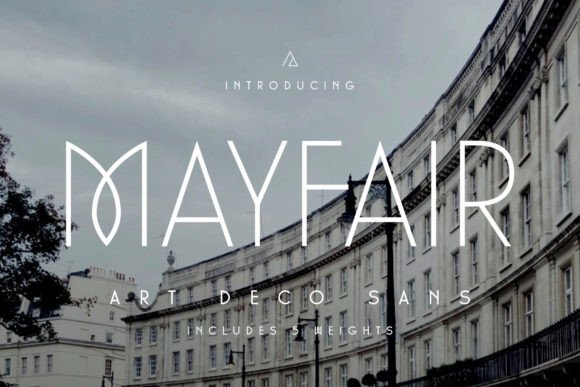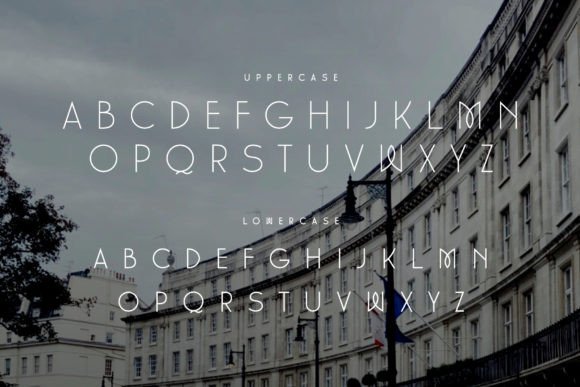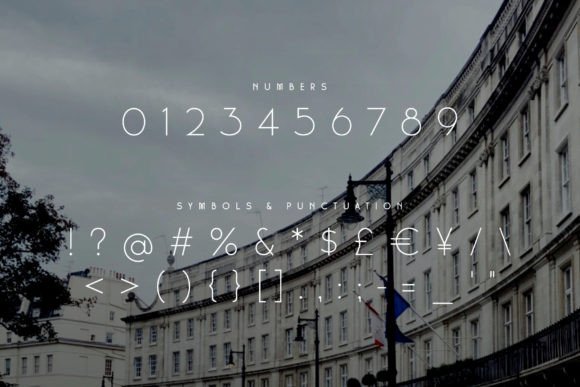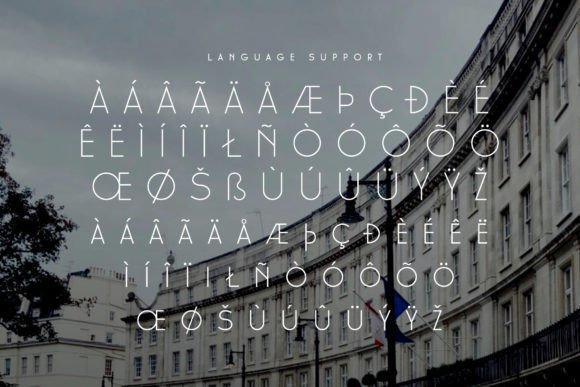
Mayfair Font: Elegant Art Deco Font for Posters & Branding
About the Mayfair Font
The Mayfair Font offers a perfect balance of form and function for your design needs. Inspired by classic 1920s Art Deco design, Mayfair takes its proportions from the typography of the era and combines it with modern sans-serif techniques for a stylish classical feel. A perfect fit for posters, invitations, wedding cards, or film and tv. It combines light and heavy stroke widths with simple geometric forms to create a stylish appearance reminiscent of the 1920s design era.
Mayfair’s strong geometric forms and contrasting weights make it ideal for headlines, logos, and short-form text where impact is key. It excels in branding applications requiring a touch of vintage elegance and sophistication, particularly for projects related to fashion, luxury goods, or entertainment. Avoid using Mayfair for body copy or lengthy text blocks; its bold forms are not optimized for readability in extended passages.
The font’s inherent boldness is best balanced by pairing it with a clean sans-serif like Helvetica Neue for a modern contrast, or a more delicate serif like Garamond for a classic feel. For a touch of Art Deco flair, consider pairing it with a geometric sans-serif such as Futura.
Mayfair projects an air of confident sophistication and restrained glamour. Its personality is bold yet refined, making it a suitable choice for brands that wish to convey a sense of timeless quality and understated luxury.